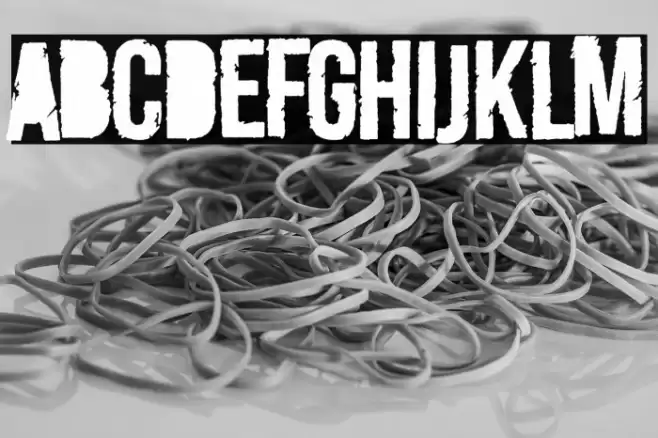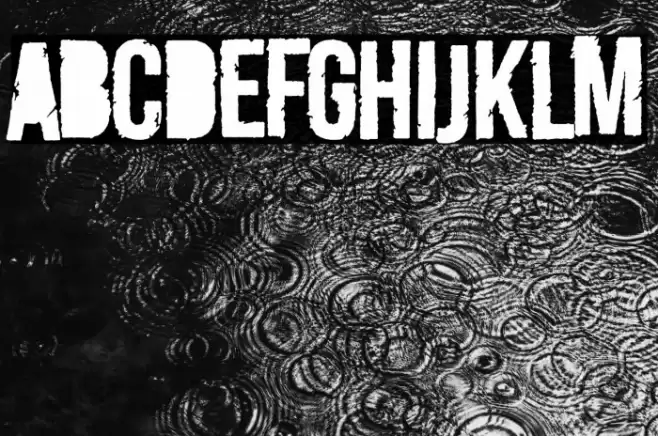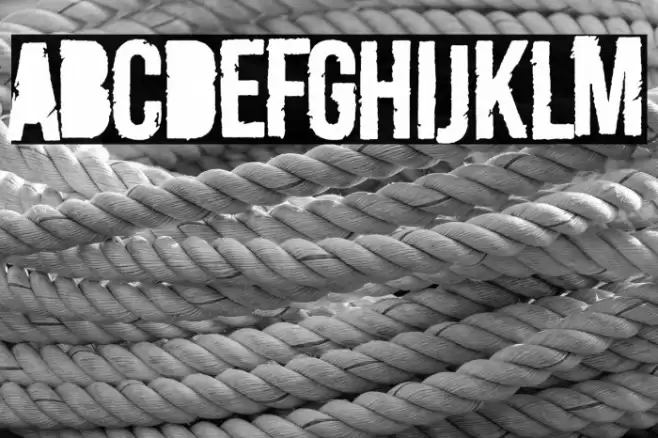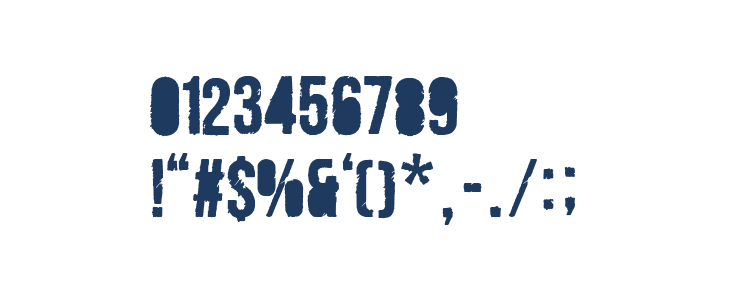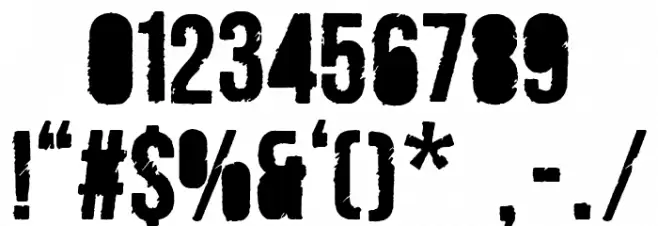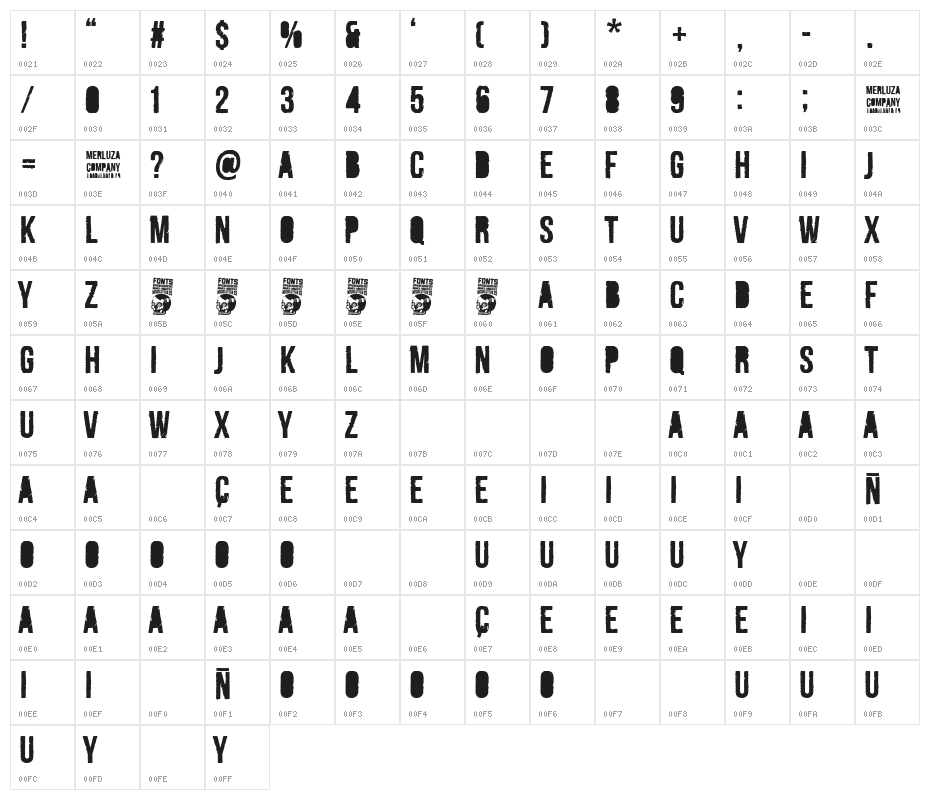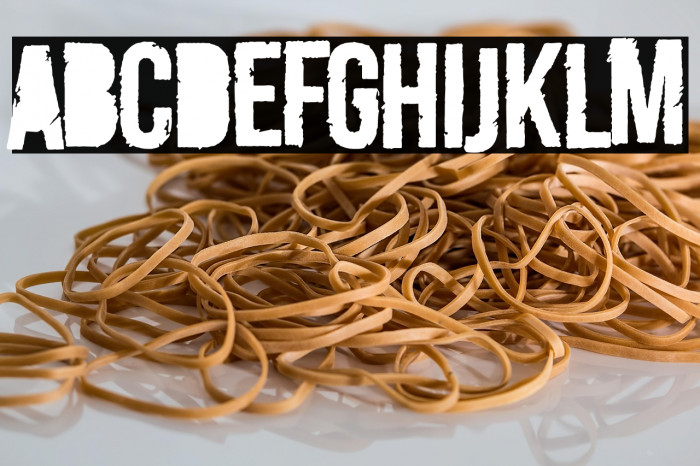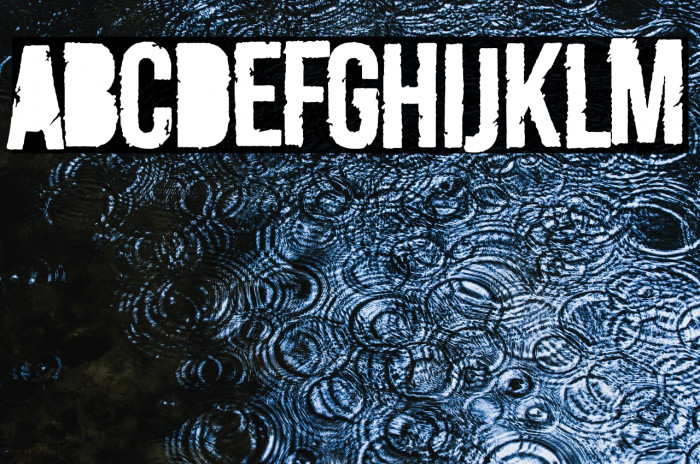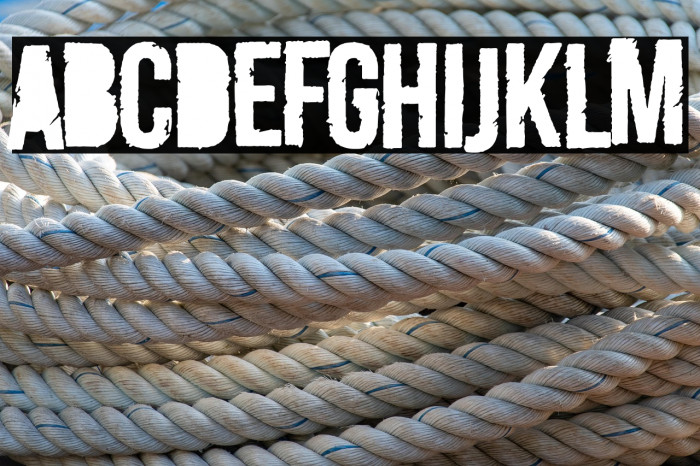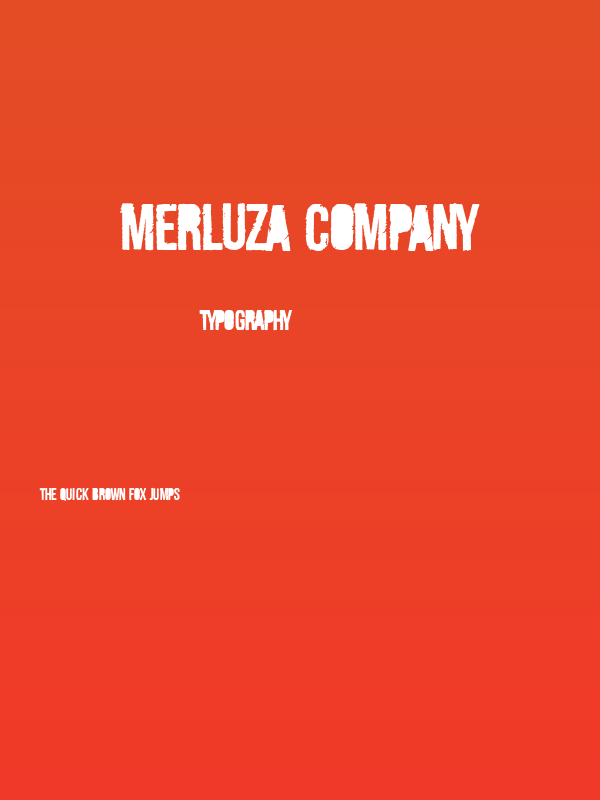
Merluza Company Font
Merluza Company Description
This font features a bold and rugged appearance, characterized by its distressed and grunge-like texture. The letters are thick and heavy, giving a strong visual impact. The edges are rough and uneven, adding to its raw and edgy style. This font is designed to stand out and make a statement, perfect for projects that require a bold and unconventional look. The numbers and special characters maintain the same distressed quality, ensuring consistency across all elements.
A bold, distressed font with a rugged, grunge-like texture from Uncategorized fonts.
- Font: Merluza Company
- Proposed Projects: Ideal for posters, album covers, streetwear branding, and any design needing a bold, edgy aesthetic.
- Overall Style: Grunge, Edgy
Merluza Company UPPERCASE
Merluza Company LOWERCASE
Merluza Company OTHER CHARS